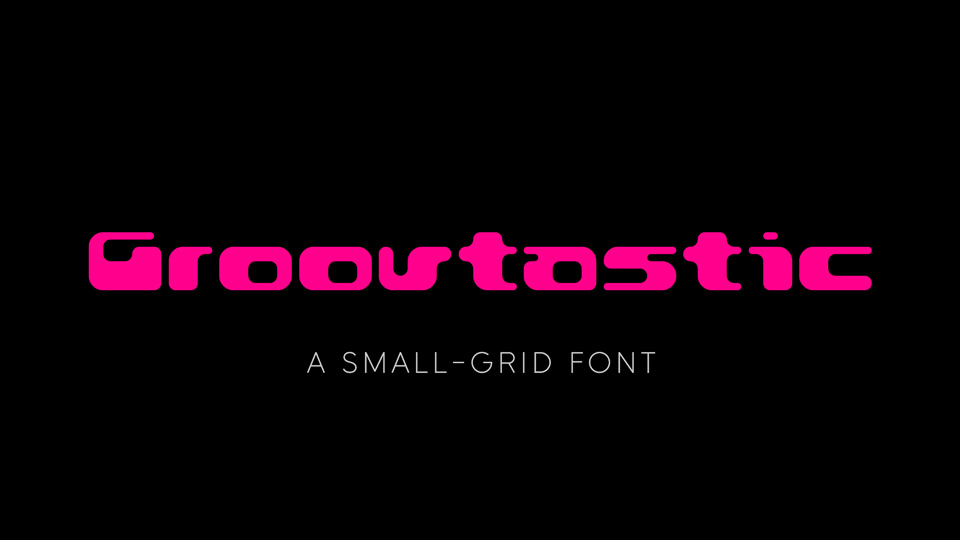
Download Groovtastic font, a groovy small grid typeface with character. Groovtastic font looks great for posters, headlines, logos and other bold statements.
Designer: Pixel Kitchen